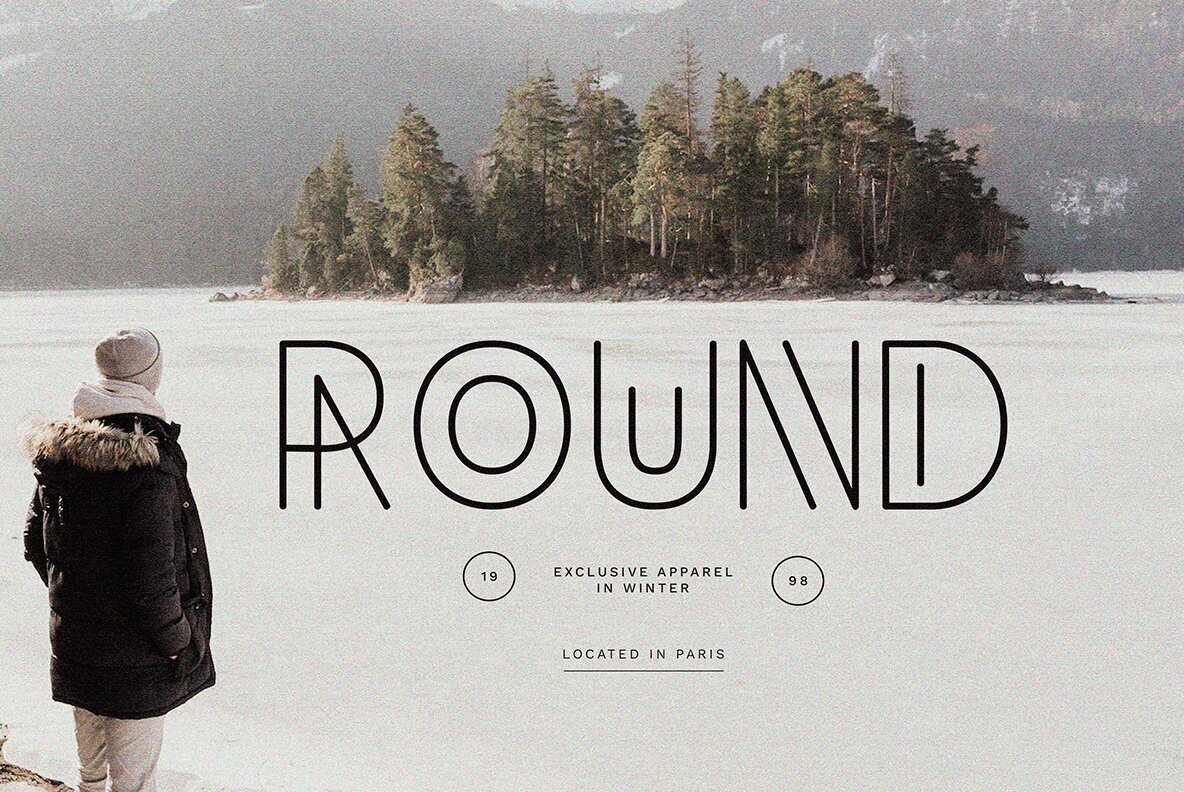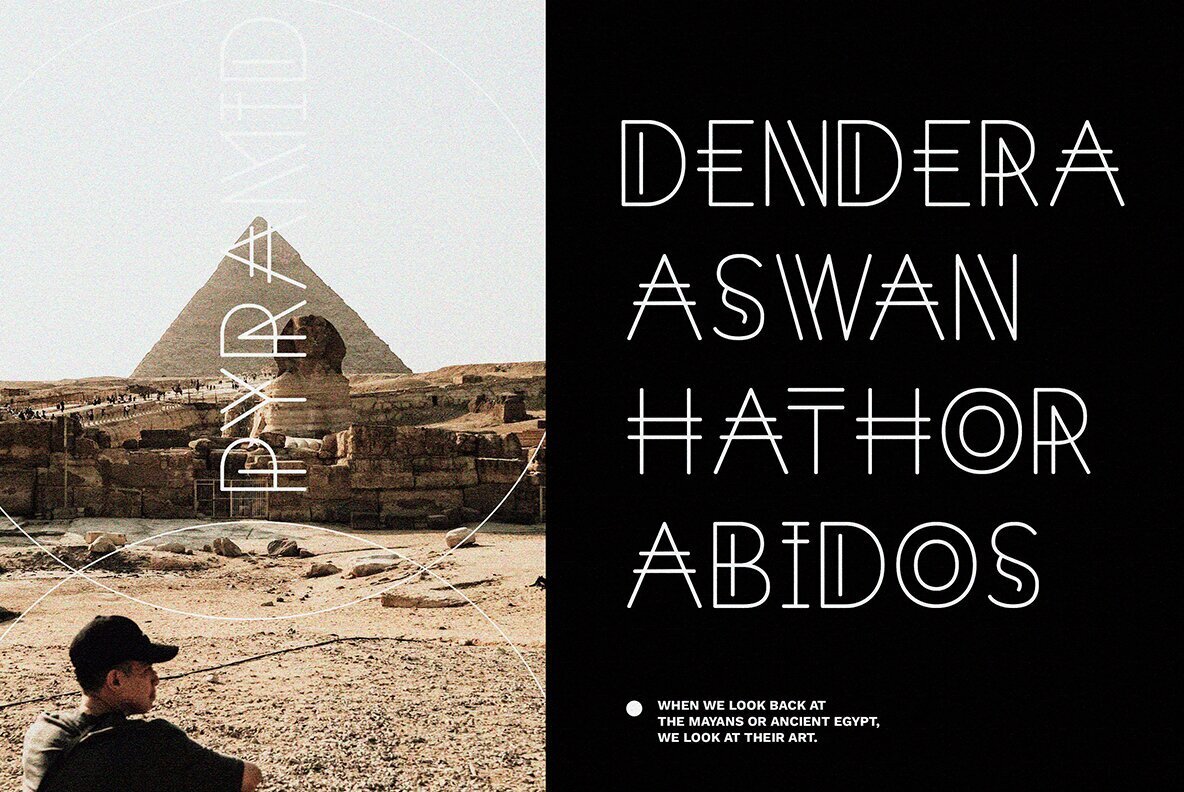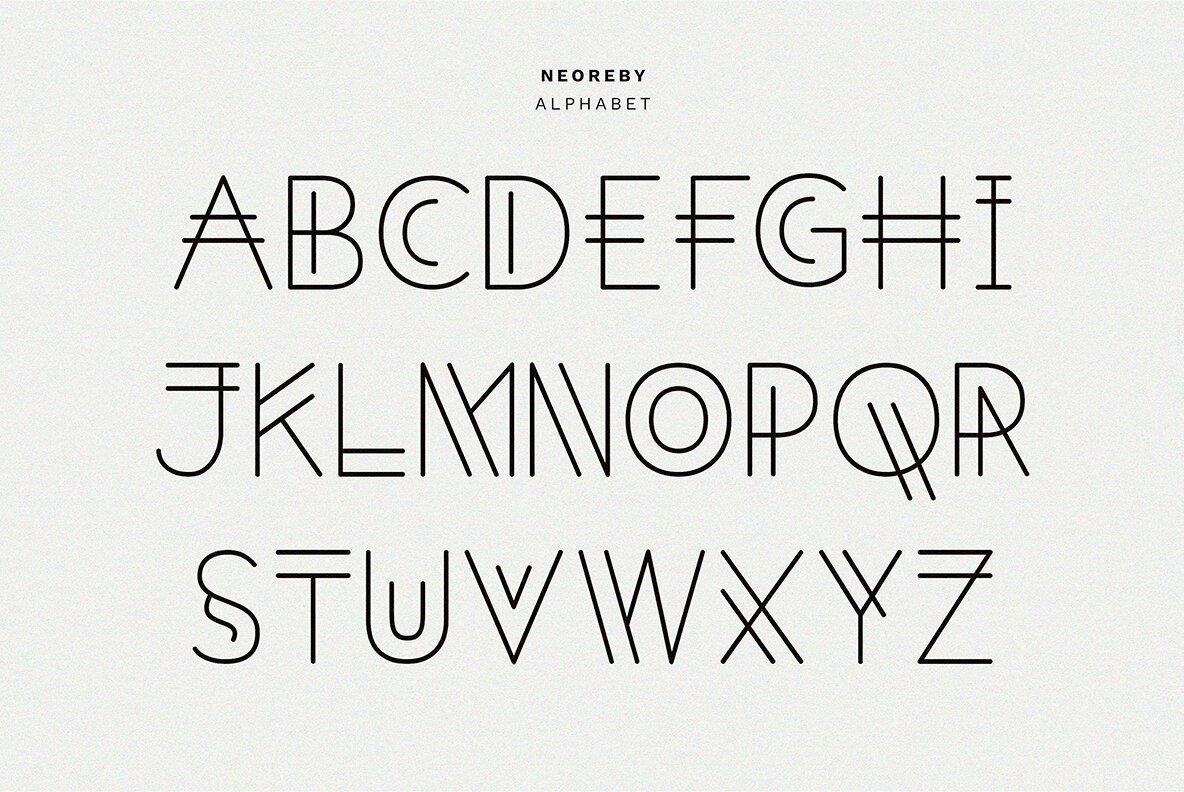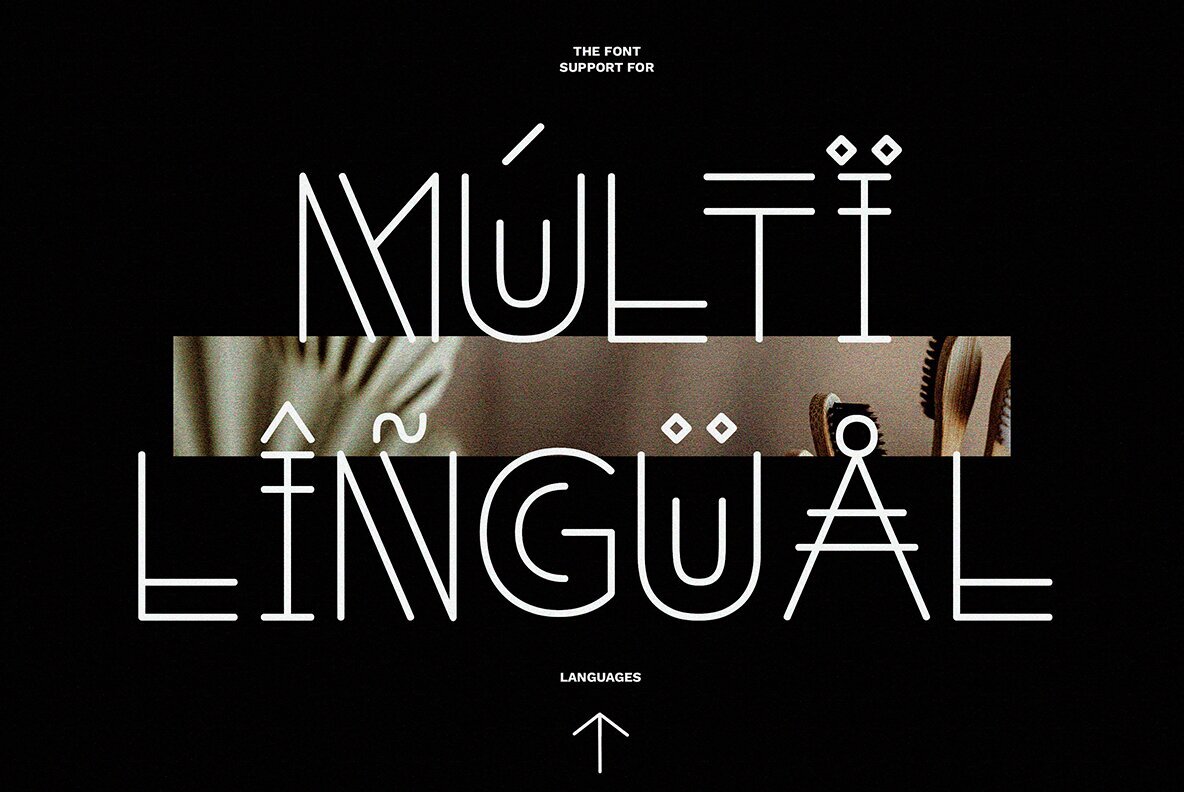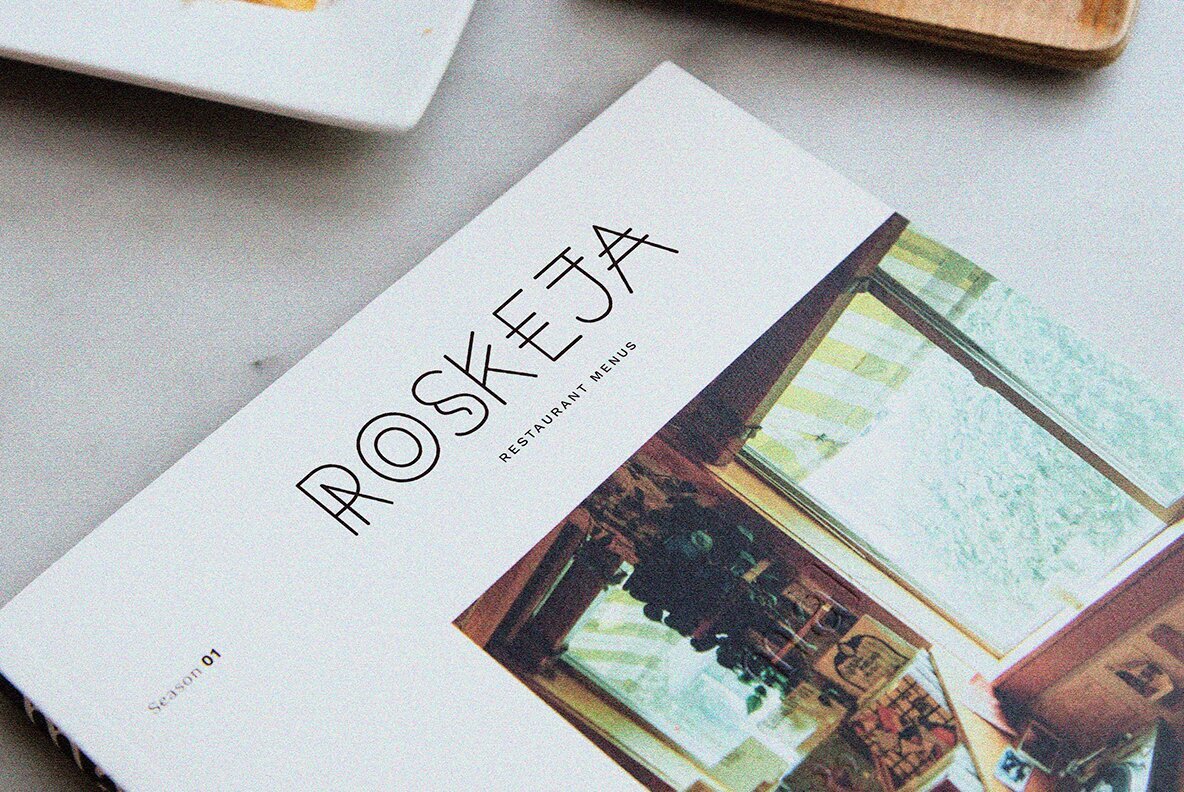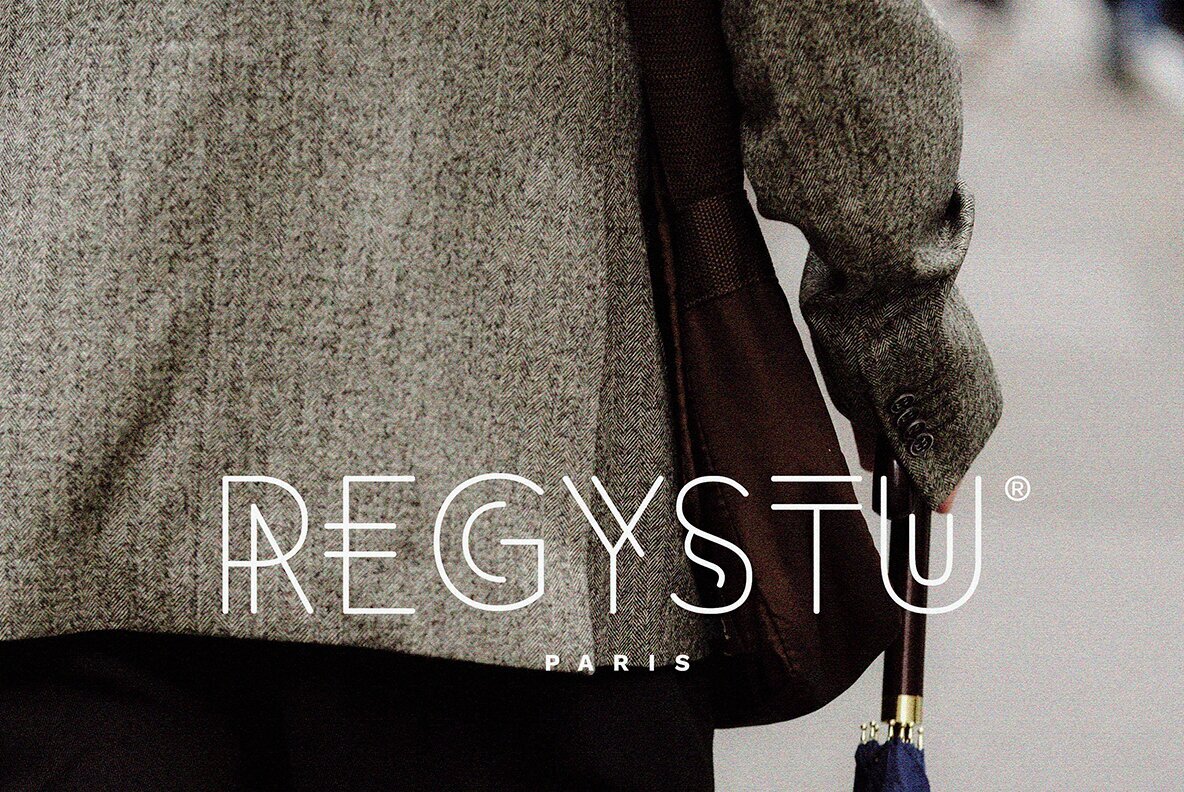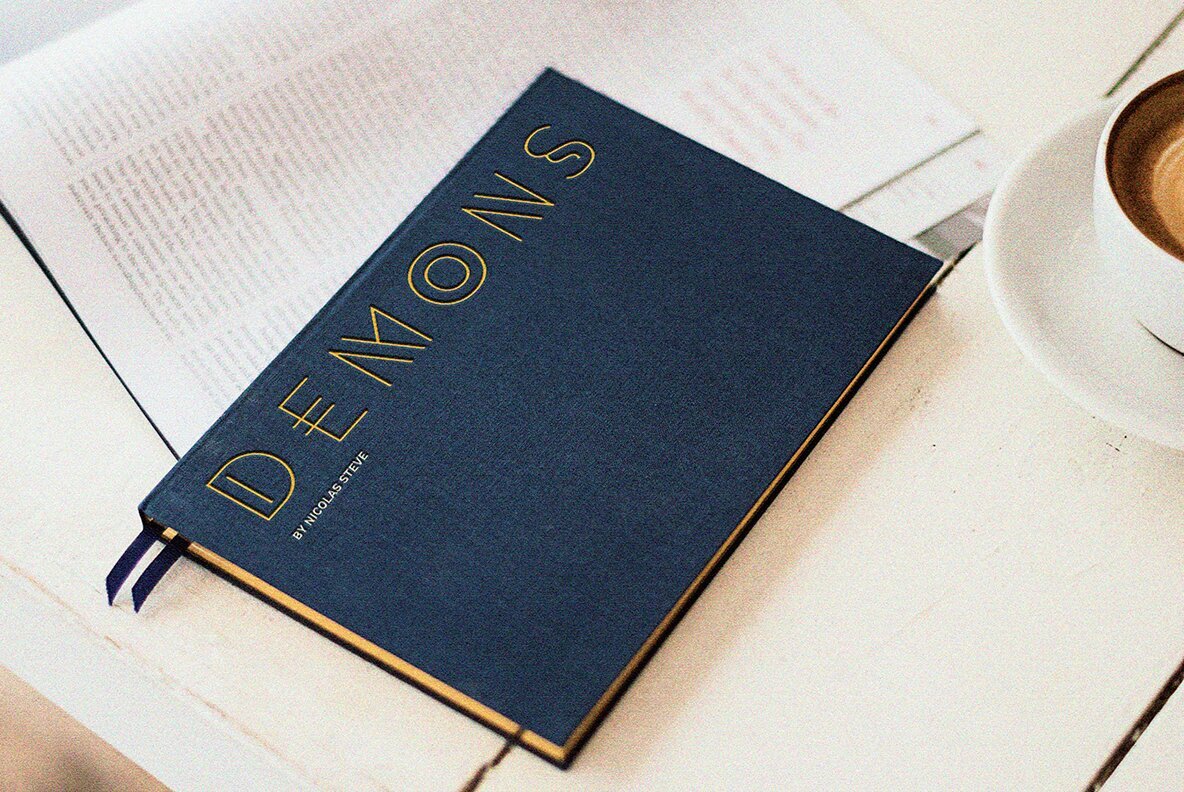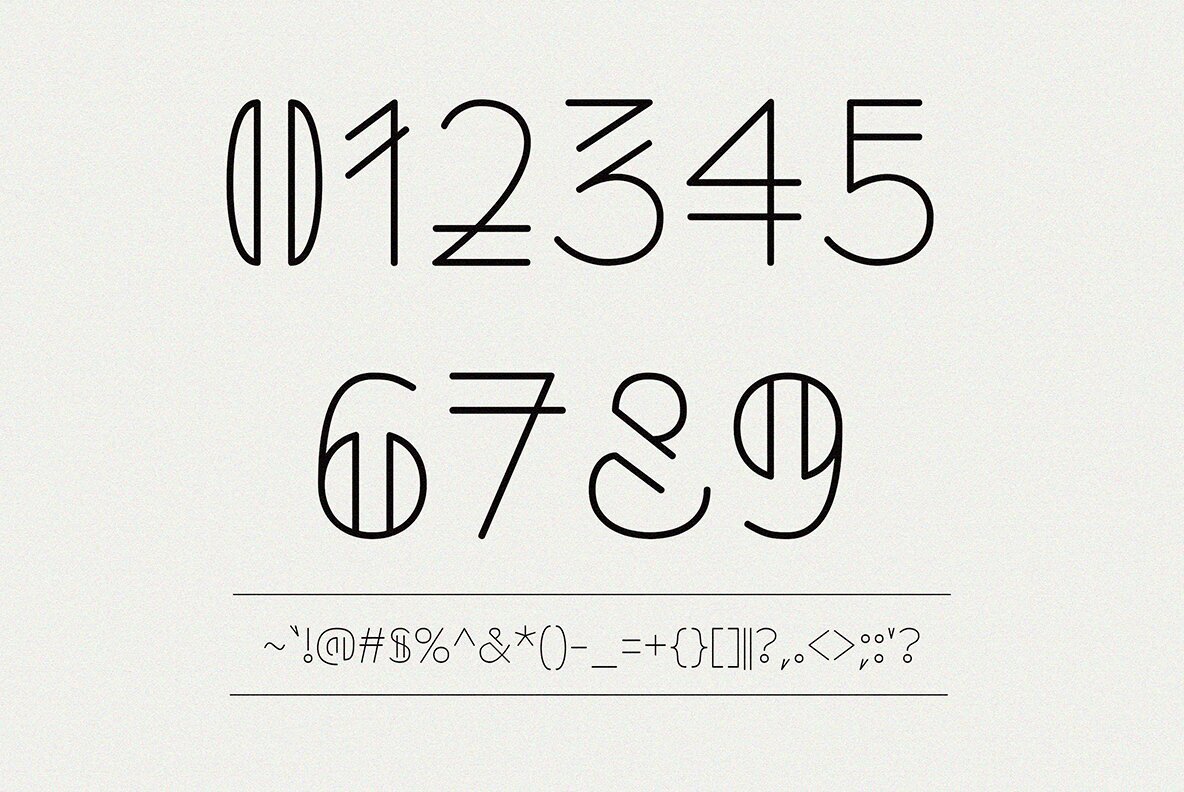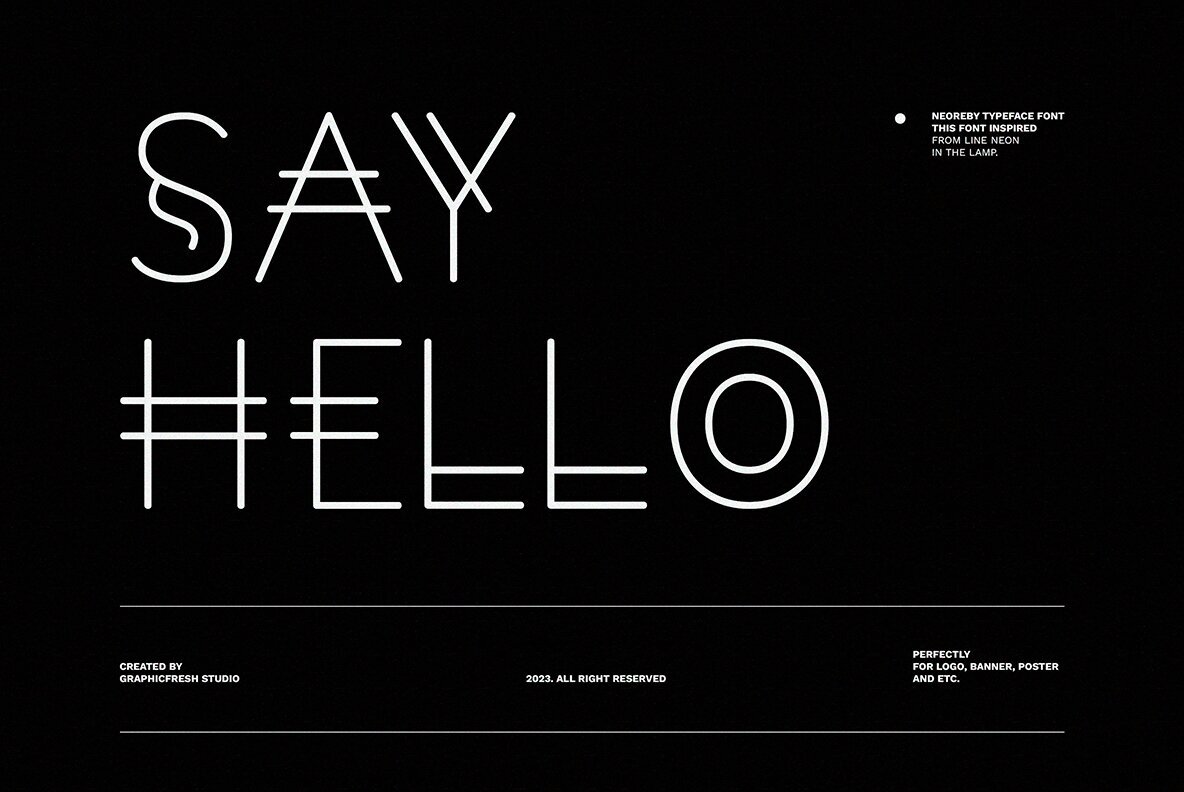
Neoreby Font
Neoreby Regular
Are you ready to kick off the new year with a fresh and modern look? Introducing our latest font, featuring a sleek and straight-line theme inspired by the timeless elegance of elongated incandescent lamps. This font seamlessly blends the past and present, with a touch of aesthetic and elegance that will elevate any design project. Perfect for everything from neon-inspired styles to today's trendy designs. Upgrade your designs today with our new font, you won't regret it.